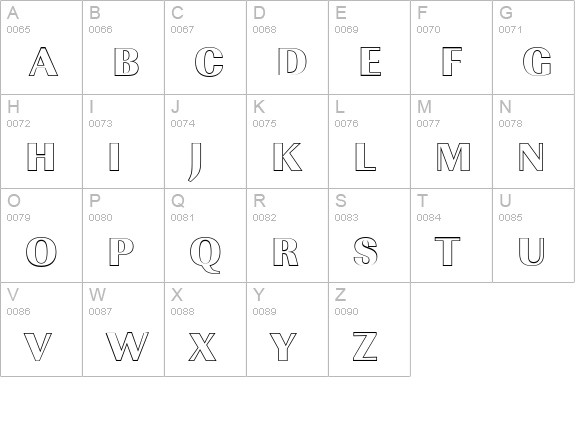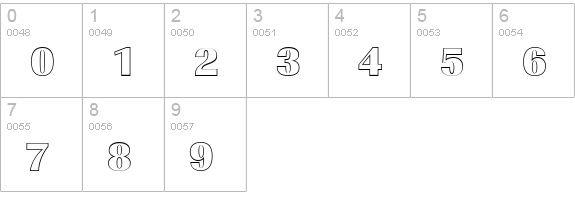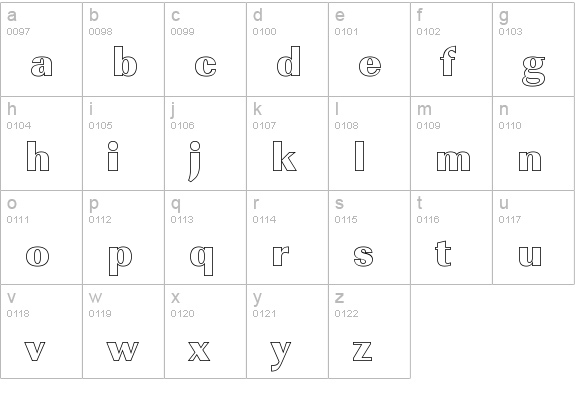
ImperialOu-Heavy-Regular is a heavy, high-impact variant in the ImperialOu typeface family \xE2\x80\x94 well suited to high-impact headlines, posters, and display advertising.
ImperialOu-Heavy-Regular font is a versatile and stylish typeface that exudes sophistication and elegance. With its bold and commanding presence, this font is perfect for making a statement in your designs. The strong, straight lines and sharp edges give it a modern and timeless appeal that is sure to captivate your audience. What sets ImperialOu-Heavy-Regular font apart is not just its striking appearance, but also the fact that it is completely free to download. That's right, you can get your hands on this exquisite font at no cost at all, simply by visiting FontsMarket.com. Whether you're working on a branding project, a poster design, or any other creative endeavor, ImperialOu-Heavy-Regular font will elevate your work and leave a lasting impression. Don't miss out on this opportunity to add a touch of sophistication to your designs with ImperialOu-Heavy-Regular font. Download it for free today and let your creativity shine!